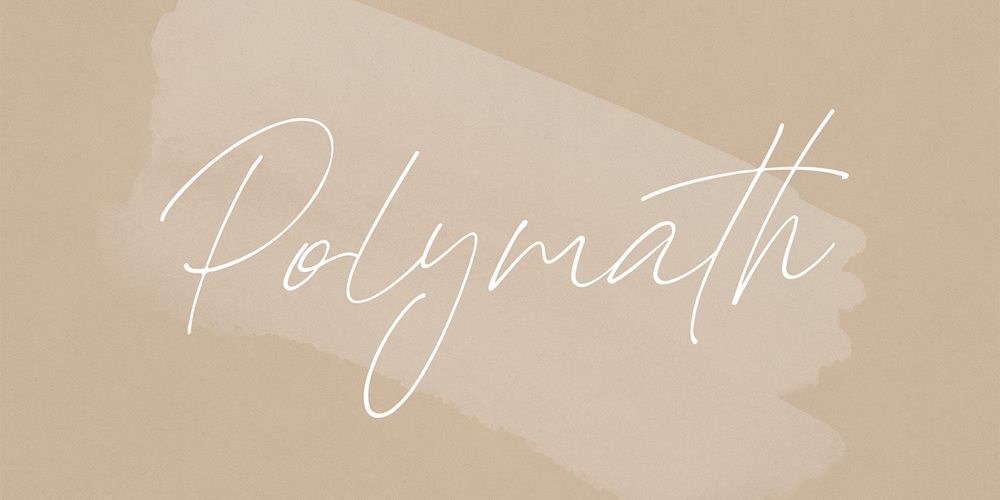
Polymath Font Family was designed by Vladimir Fedotov, Plamen Petrov and published by VP Creative Shop. Polymath contains 1 styles and family package options. Introducing Polymath – organic scriptPolymath is organic and modern script loaded with ligature glyphs and multilingual support. It’s a very versatile font that works great in large and small sizes.This font is perfect for branding projects, home-ware designs, product packaging, magazine headers – or simply as a stylish text overlay to any background image.FEATURES Uppercase, lowercase, numeral, punctuation & Symbol ligature glyphs Multilingual support No special software is required to type out the standard characters of the Typeface. Canva friendly Feel free to contact me if you have any questions!Mock ups and backgrounds used are not included.Thank you! Enjoy!